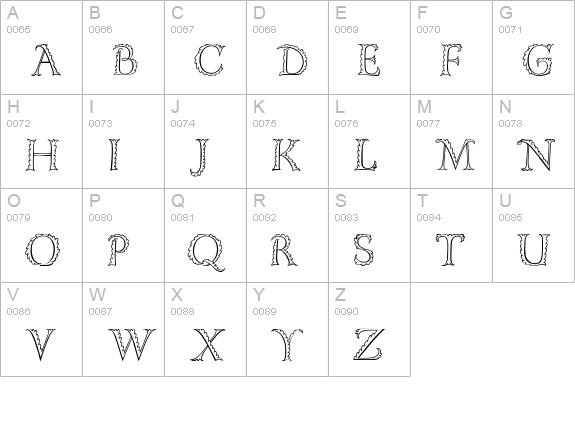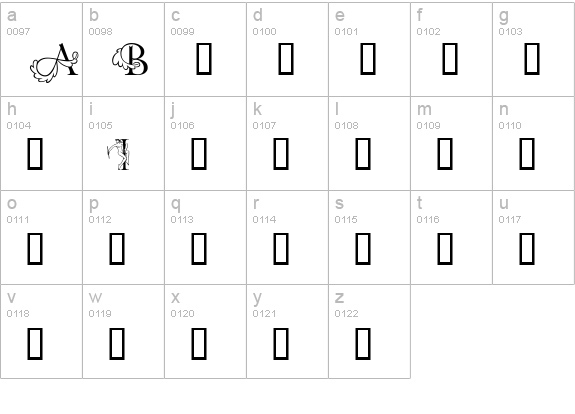
Floriated Gill Font Details
Floriated Gill font is a stunning typeface that beautifully combines delicate floral elements with elegant letterforms. The intricate details of the floriated motifs give this font a unique and enchanting appeal, making it perfect for projects that require a touch of whimsy and sophistication. The graceful curves and intricate flourishes of Floriated Gill make it an ideal choice for wedding invitations, greeting cards, and other designs that call for a romantic and timeless aesthetic. Best of all, Floriated Gill font is available for free download at FontsMarket.com. This means you can easily add this exquisite typeface to your design arsenal without any cost. Don't miss out on the opportunity to enhance your projects with the beauty and charm of Floriated Gill font – download it today and let your creativity flourish!